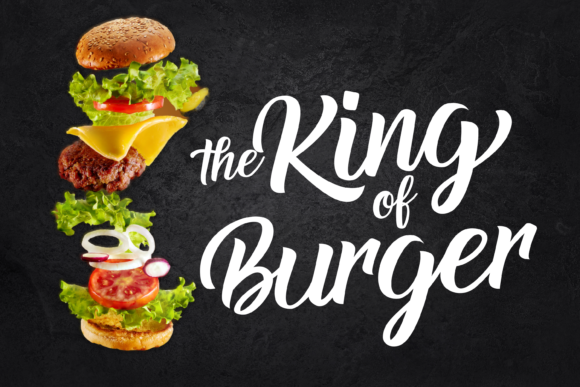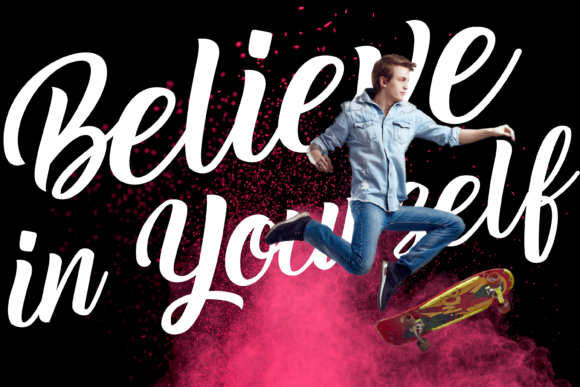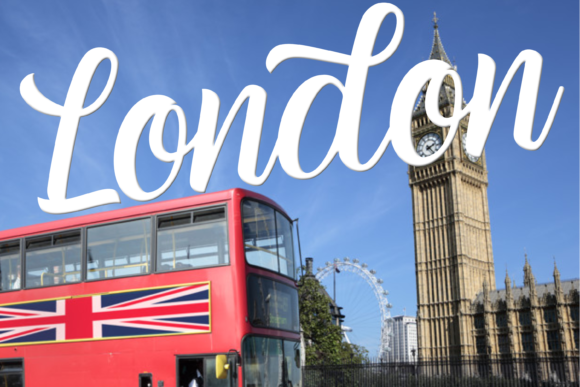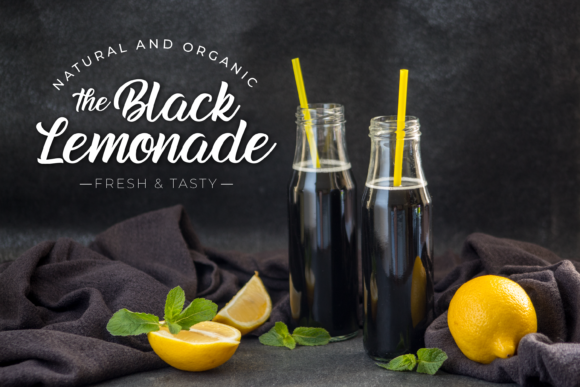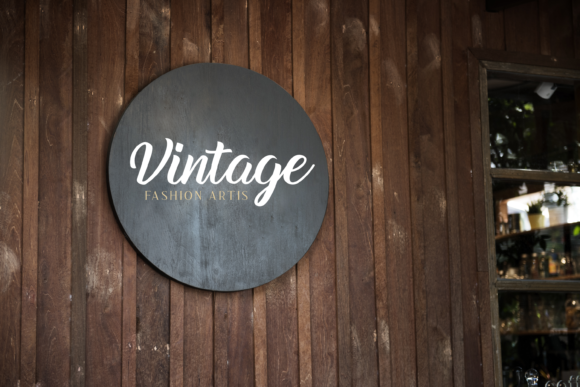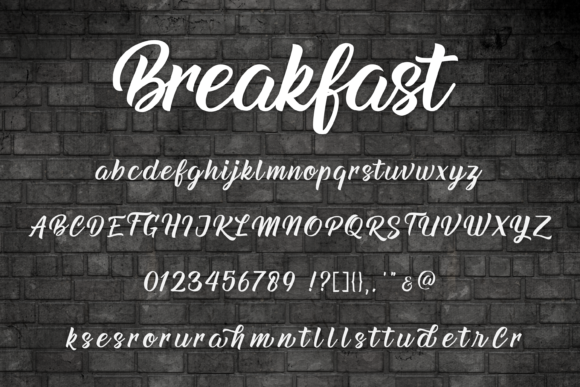
Discover the Morning Magic of Breakfast Font
Do you ever find yourself strolling through a bustling coffee shop, surrounded by the aroma of freshly brewed coffee and the gentle hum of morning chatter? It’s in these moments that creativity often strikes. For designers, a dash of inspiration can be found in the smallest of details, like the typography that wraps around a morning menu board.
Enter Breakfast Font, a delightful script that embodies the essence of a warm morning meal. With its playful, handwritten feel, Breakfast Font is the perfect addition to any design project that requires a touch of authenticity. Whether you’re crafting a logo, designing a restaurant menu, or creating a social media campaign, this charming font is sure to bring a smile to your audience’s face.
For designers seeking to add a personal touch to their work, Breakfast Font is a valuable asset. Its unique charm and effortless feel make it an ideal choice for projects that demand a sense of approachability and warmth. So why not start your day off right with a font that’s as inviting as a freshly baked croissant?
Breakfast Font Key Features
- Unique Characteristics: The font features a distinctive, hand-drawn style with bold lines and playful flourishes, making it perfect for adding a touch of whimsy to designs.
- Kerning and Ligatures: The font includes advanced kerning and ligature pairs to ensure smooth, even spacing and a professional appearance.
Breakfast Font Review
Overall, I was excited to dive into the “Breakfast Font” as it seemed like a unique and playful addition to any design project. Here’s what I thought:
- The font’s quirky, hand-drawn feel is perfect for adding a touch of whimsy to designs, especially for food-related projects.
- The varied line weights and styles offer a lot of flexibility when it comes to creating visually interesting typography.
- The font is highly legible, even at small sizes, making it suitable for a wide range of applications.
- The font’s playfulness can sometimes come across as kitschy or over-the-top, which may not be suitable for more formal or professional designs.
- The font’s lack of a clear, uniform grid system can make it challenging to use for complex layouts or large blocks of text.
The “Breakfast Font” is a fun and creative addition to any designer’s toolkit. While it may not be suitable for every project, it’s perfect for adding a touch of personality and whimsy to designs that need a little extra flair. With some careful consideration and planning, this font can be a real showstopper.
The Breakfast Font is perfect for:
- Food-related designs (e.g. restaurant menus, food blogs)
- Whimsical and playful designs
For best results, use the Breakfast Font in conjunction with bright, bold colors and playful graphics.